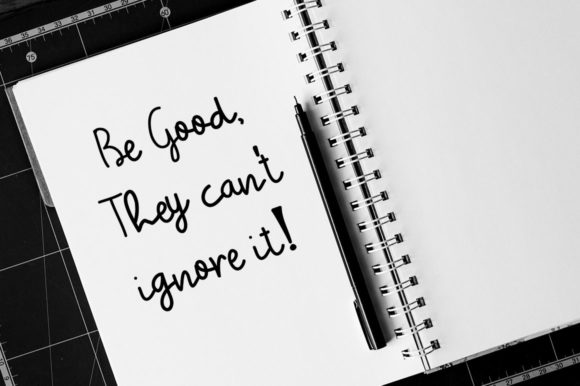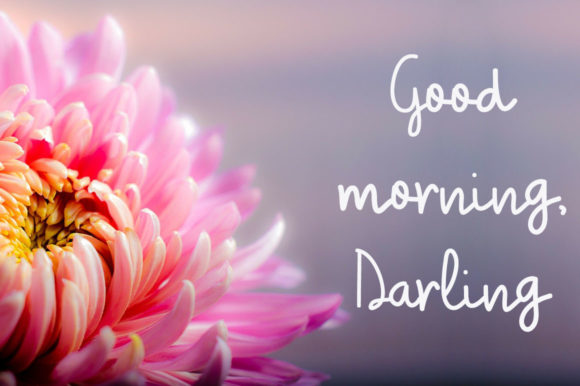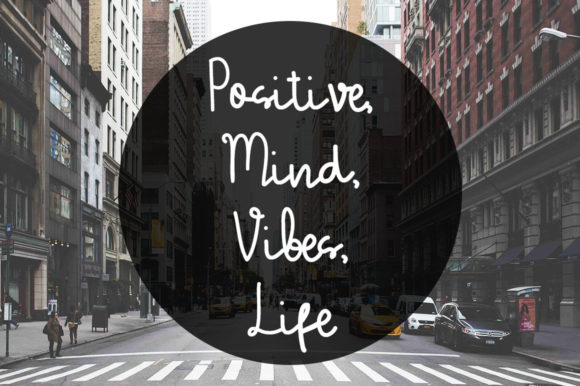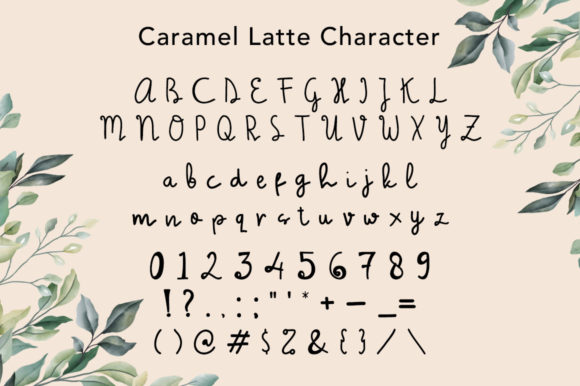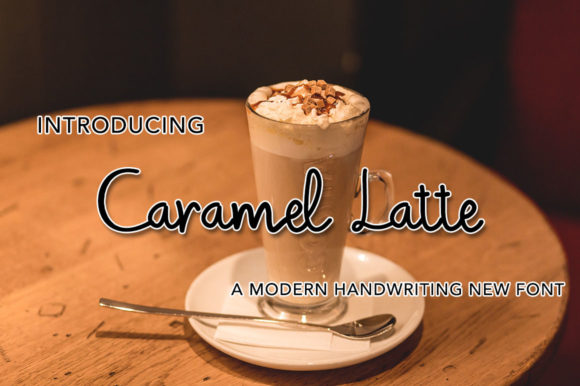
The Caramel Latte Font: A Deliciously Quirky Addition to Your Design Toolbox
I’ll never forget the time I was working on a branding project for a trendy coffee shop. My client wanted a font that was both clean and playful, but I was struggling to find the perfect fit. That’s when I stumbled upon the Caramel Latte font, a bouncy handwritten font that has since become a staple in my design toolbox.
Clean and a little bit quirky, Caramel Latte is the perfect fit for all of your logos, branding, social media, and crafty DIY projects. In this article, I’ll share my honest review of the font, provide a practical guide on how to use it, and explore similar fonts and alternatives.
- ✨ The playful, bouncy feel of the font adds a touch of whimsy to any design project.
- ✅ The clean lines and simple shapes make it easy to read and versatile for various applications.
- 💡 The font’s quirks and imperfections give it a charming, handmade feel that’s perfect for crafty DIY projects.
While Caramel Latte is an amazing font, there are a few things to keep in mind:
- 🤔 The font can be a bit too playful for very formal or professional projects.
- ⚠️ Some of the letters and glyphs may not be suitable for use at very small sizes.
A Practical Guide to Using Caramel Latte
- Experiment with OpenType features, such as ligatures and stylistic alternates, to add visual interest to your design.
- Use the Glyphs panel to access additional glyphs and OpenType features, such as swashes and ornaments.
- Use the font’s built-in stylistic alternates and ligatures to add visual interest to your document.
The Designer Inspiration Behind Caramel Latte
Caramel Latte was designed with the intention of creating a font that was both clean and playful. The designer wanted to create a font that would evoke the feeling of a perfectly crafted cup of coffee – warm, inviting, and full of character.
Q: Can I use Caramel Latte for my social media graphics?
A: Absolutely! Caramel Latte is a great choice for social media graphics, and its playful feel is sure to grab attention.
Q: Is Caramel Latte available in different weights or styles?
A: Currently, Caramel Latte is available in a single weight, but the designer may release additional weights or styles in the future.
Q: Can I use Caramel Latte for my crafty DIY projects?
A: Yes! Caramel Latte is perfect for crafty DIY projects, such as making signs, cards, or other handmade items.